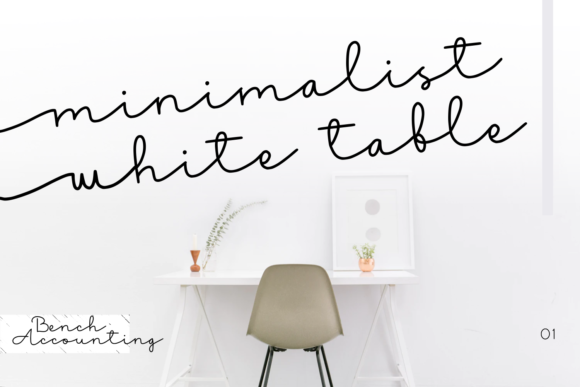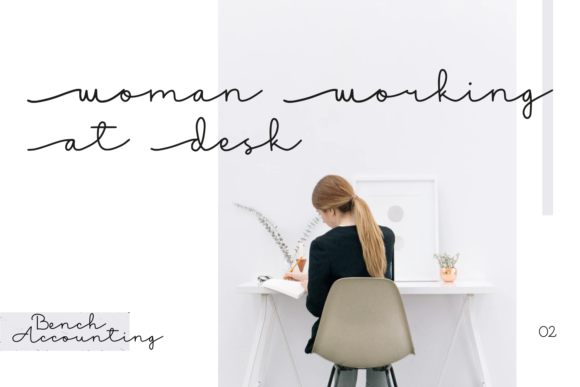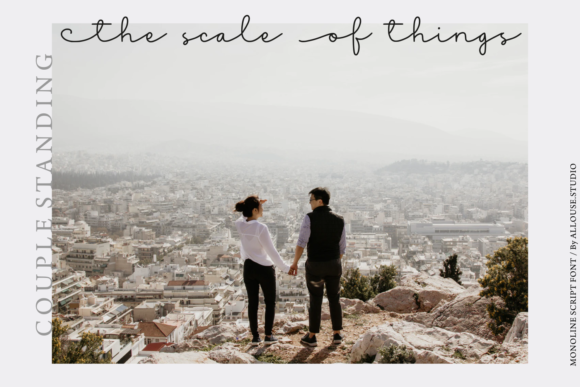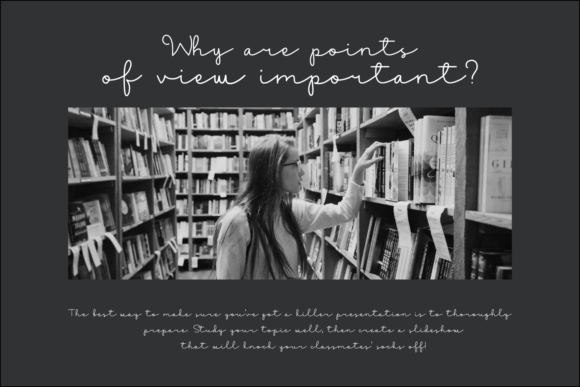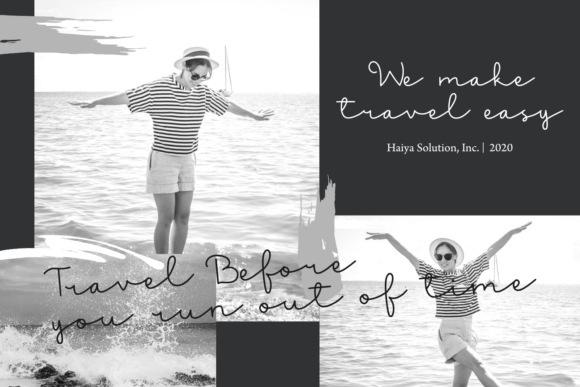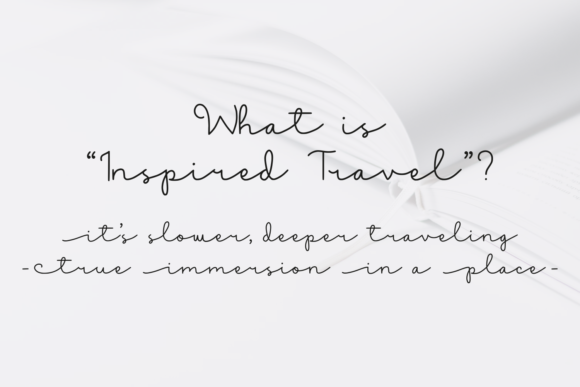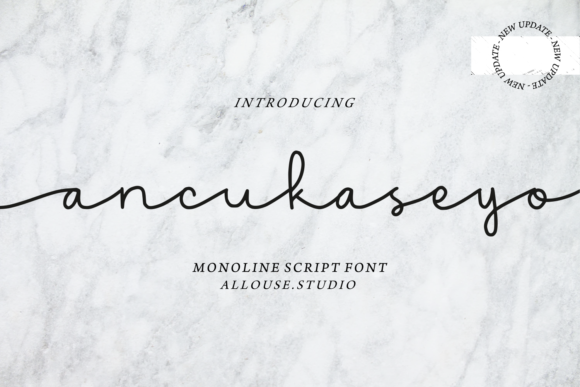
Introducing Ancukaseyo Font: The Epitome of Elegance and Sophistication
In the world of typography, few fonts manage to strike a balance between classic elegance and modern flair. Ancukaseyo Font is one such gem that has captured the hearts of designers and crafters alike with its exquisite handwritten charm. This beautifully crafted font is not just a typeface; it’s an experience that elevates your projects to unprecedented heights of sophistication and style.
The Genesis of Ancukaseyo Font
Ancukaseyo Font is the brainchild of talented typographers who sought to create a font that embodies the essence of calligraphic artistry while resonating with contemporary design sensibilities. The result is a masterpiece that exudes class, elegance, and a touch of modernity. Each letter in the Ancukaseyo Font is meticulously designed to showcase fluid strokes, intricate details, and a harmonious balance that makes it a true favorite among design enthusiasts.
Key Features of Ancukaseyo Font
- Classy Calligraphic Influences: Ancukaseyo Font is deeply rooted in traditional calligraphy, offering a sophisticated look that is perfect for high-end projects, branding, and luxury goods.
- Contemporary and Fresh: Despite its classic undertones, Ancukaseyo Font feels refreshingly modern. Its clean lines and fluid connections ensure that it remains versatile and suitable for a wide range of design applications.
- Exquisite Handwritten Quality: The font’s handwritten nature gives it a personal and intimate feel, making it ideal for projects that require a touch of warmth and personality.
- Versatility: Ancukaseyo Font can be used across various platforms and design projects, from digital interfaces and websites to print materials like brochures, posters, and business cards.
Why Choose Ancukaseyo Font?
Choosing Ancukaseyo Font for your design projects comes with numerous benefits. Firstly, it helps you stand out in a crowded market by adding a unique and sophisticated touch to your work. Secondly, its legibility and readability ensure that your message is conveyed effectively, whether in digital or print format. Lastly, the font’s timeless appeal means that your designs will remain relevant and stylish for years to come.
Applications of Ancukaseyo Font
The versatility of Ancukaseyo Font makes it suitable for a myriad of applications, including:
- Branding and Logo Design: Create memorable and impactful brand identities with Ancukaseyo Font.
- Wedding and Event Stationery: Add a touch of elegance to your wedding invitations, menus, and event programs.
- Packaging Design: Elevate your product packaging with a sophisticated and eye-catching typography.
- Web Design: Enhance the aesthetic appeal of your website with a font that combines beauty and functionality.
How to Use Ancukaseyo Font Effectively
To maximize the potential of Ancukaseyo Font, consider the following tips:
- Pair it with Neutrals: Combine Ancukaseyo Font with neutral backgrounds or complementary fonts to let its elegance shine.
- Experiment with Sizes: Play with different font sizes to create visual hierarchy and emphasis in your designs.
- Pay Attention to Spacing: Ensure adequate spacing between letters and lines to maintain readability and aesthetic appeal.
Ancukaseyo Font is more than just a typeface; it’s a design statement that speaks of elegance, sophistication, and creativity. Whether you’re a seasoned designer or a crafting enthusiast, this exquisite handwritten font has the potential to transform your projects into stunning works of art. With its classy calligraphic influences, contemporary freshness, and versatility, Ancukaseyo Font is poised to become your new favorite. So, fall in love with Ancukaseyo Font and witness your designs ascend to the highest levels of aesthetic excellence.